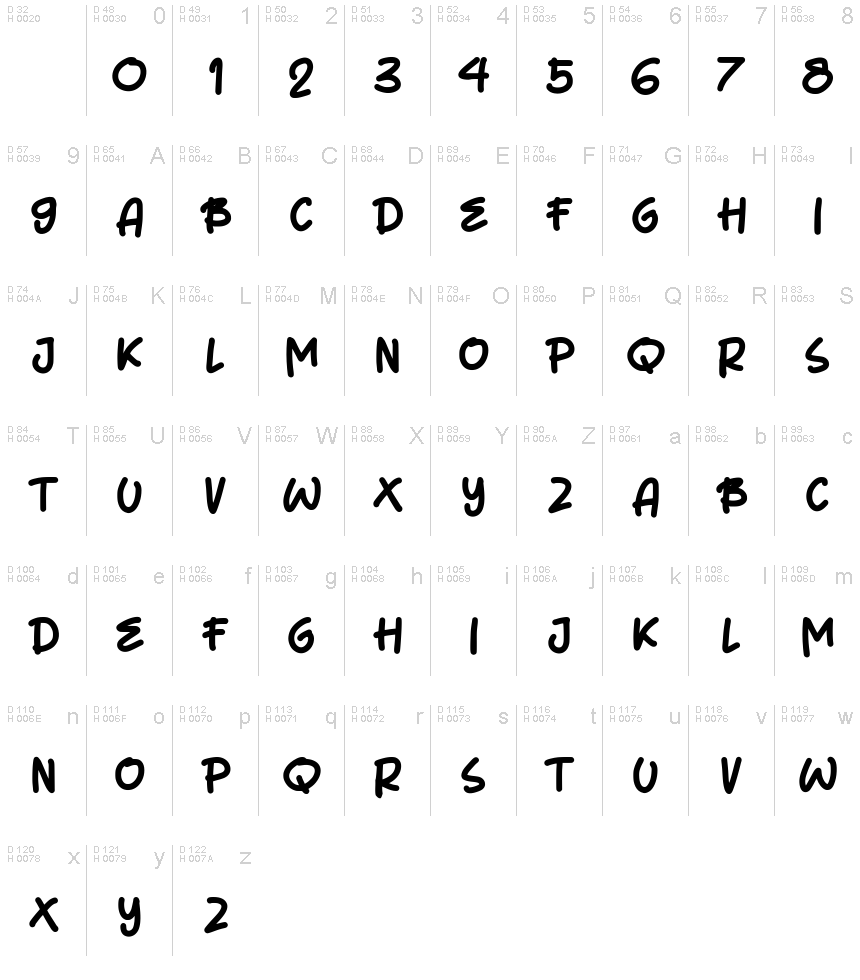
HugeBoy
HugeBoy, crafted by selawetype, is a playful and vivid display font that captures the whimsical charm of cartoon scripts. Its bold strokes and lively curves evoke a sense of fun and creativity, perfect for designs that aim to stand out with a touch of humor and friendliness.
The jaunty tilt and exaggerated shapes of HugeBoy are reminiscent of classic animation titles, making it an ideal choice for children's books, party invitations, or any project that requires a dash of youthful exuberance. Whether splashed across a poster or animating the pages of a comic book, this font adds personality to every word it forms.